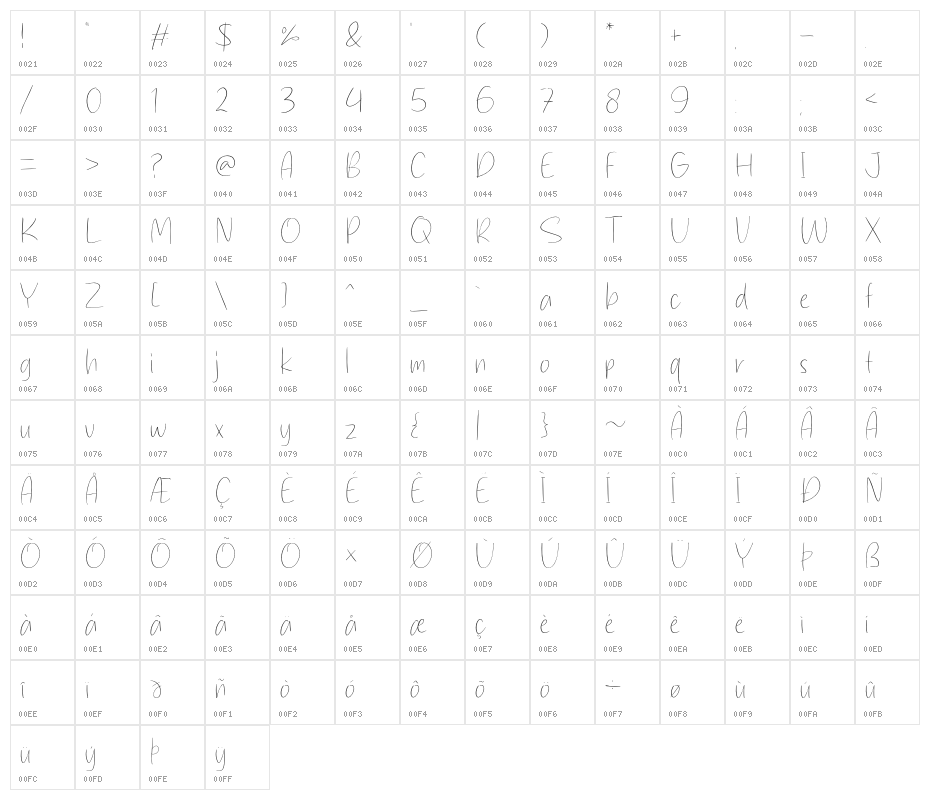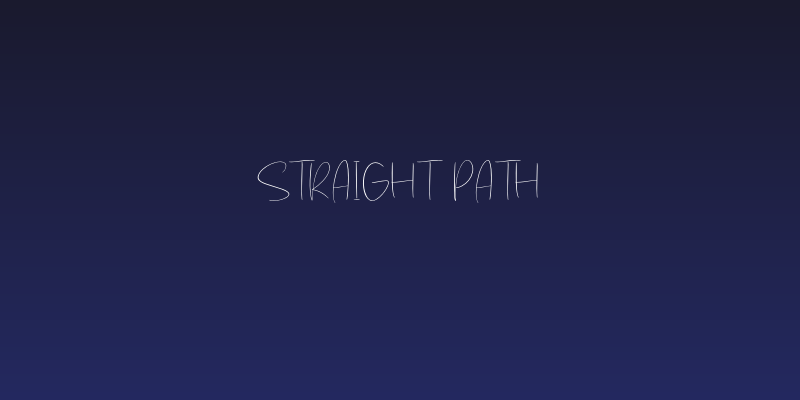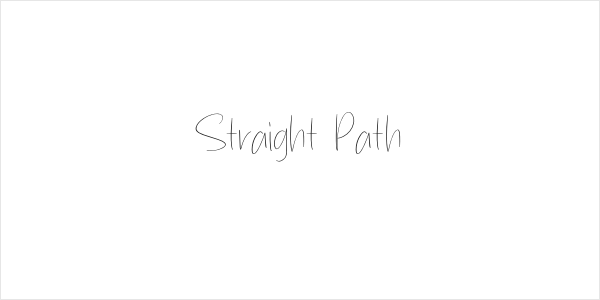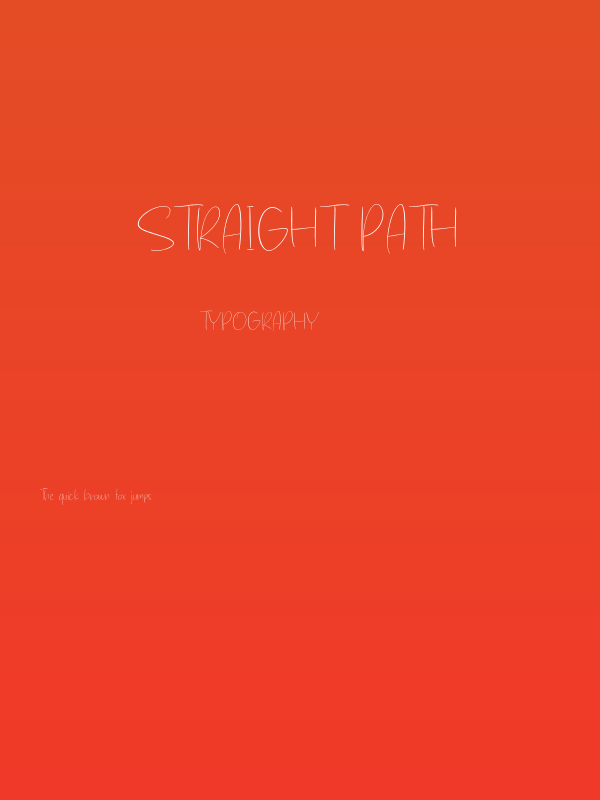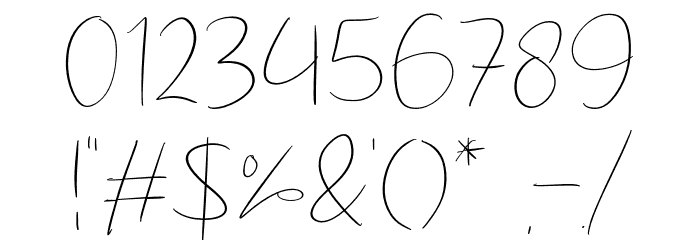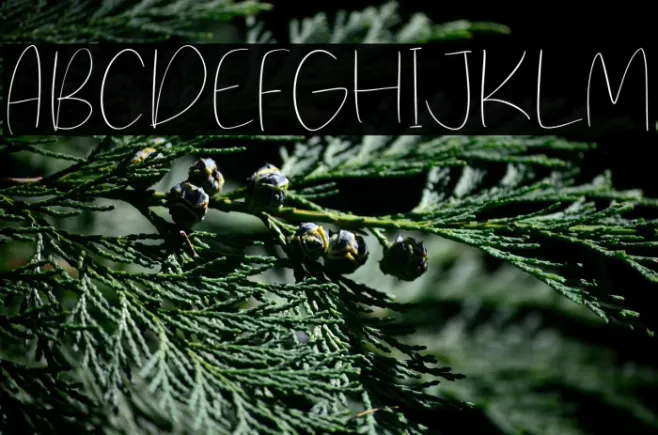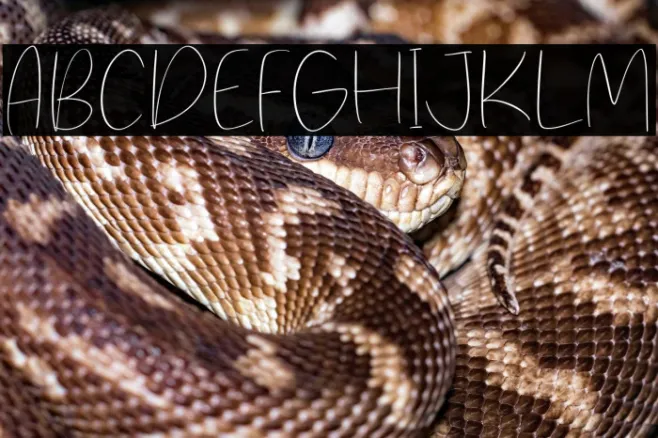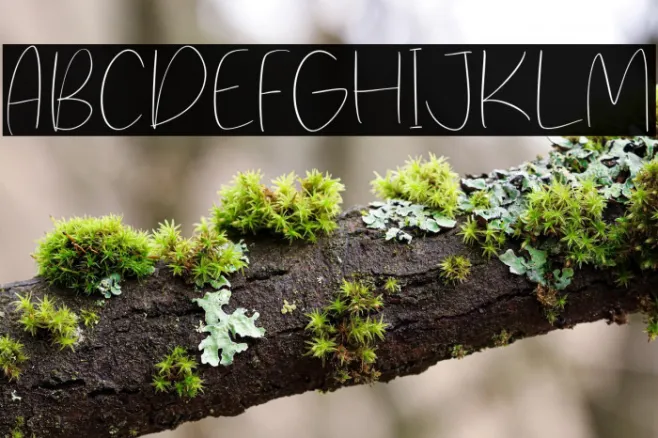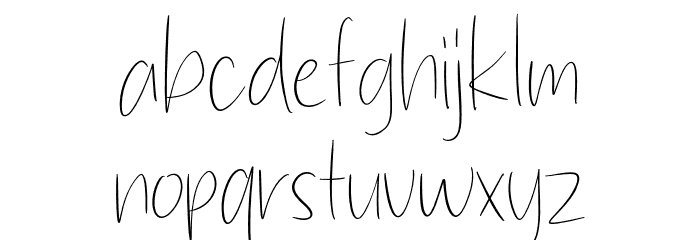
Straight Path Font
Straight Path Description
This font features a handwritten style with a casual and approachable feel. The characters are thin and elongated, giving a sense of elegance and simplicity. The strokes are consistent in width, providing a uniform appearance throughout the alphabet. The uppercase letters are tall and slightly narrow, while the lowercase letters maintain a playful and informal look. The numbers follow the same style, ensuring cohesiveness across all characters. Special characters are included, maintaining the same handwritten aesthetic. Overall, this font exudes a modern and friendly vibe, making it suitable for various creative applications.
| Use Case | Logos, Invitations, Social Media Graphics |
| Proposed Projects | Ideal for personal branding, invitations, greeting cards, and social media graphics. |